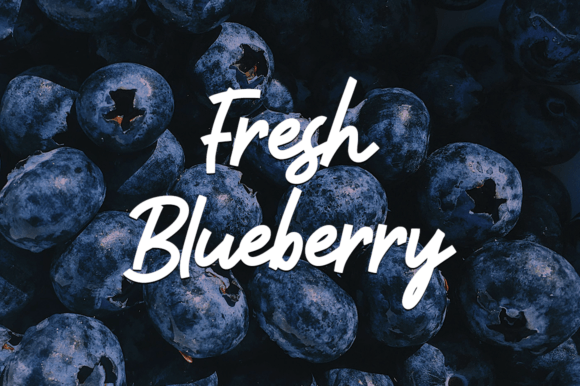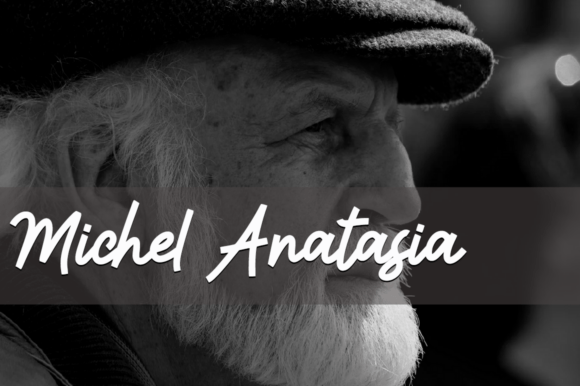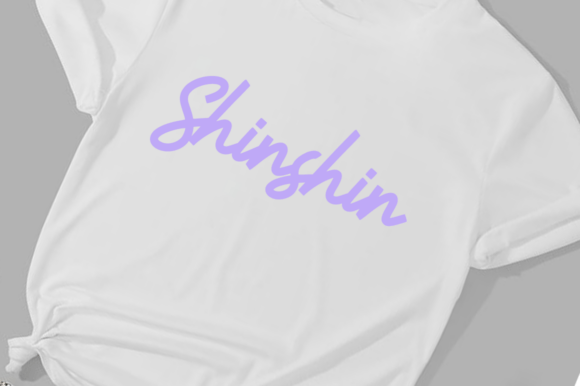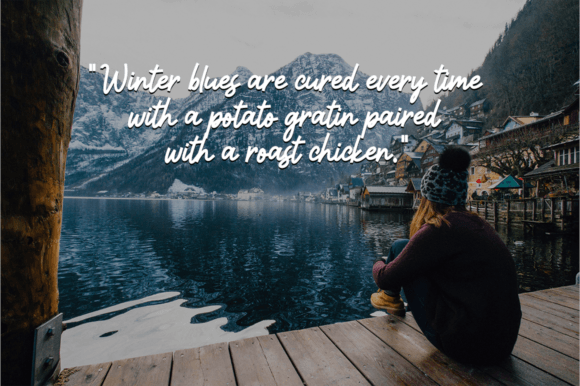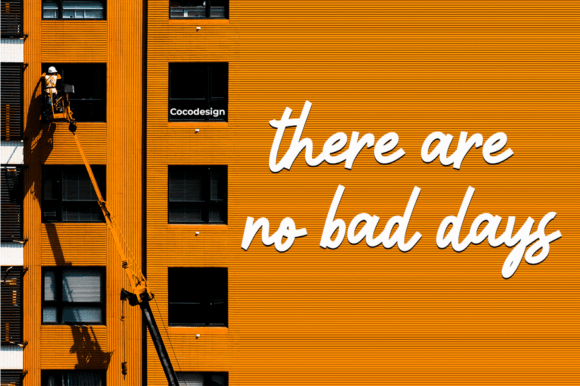
Introduction to Jamaika Font
As a designer, have you ever stumbled upon that perfect font that makes your creative project shine? For me, it was the moment I discovered Jamaika Font. Its delicate, handwritten charm instantly elevated my designs, and I knew I had to share it with fellow creatives. Whether you’re a seasoned designer or just starting out, this high-quality font is sure to become your go-to resource for adding a touch of sophistication to your work.
Jamaika Font is a game-changer for designers seeking to elevate their branding, marketing collateral, and even apparel designs. Its chic, feminine strokes effortlessly enhance the elegance of any design, making it perfect for projects that require a delicate, handwritten charm. With its transparent background and free download option, you can experiment with this beautiful font without any limitations.
Key Features of Jamaika Font
- Comes in a transparent background for seamless integration
- Features a unique, elegant design perfect for various applications
- Includes 2 font styles with multiple weights and sizes
Honest Review: Jamaika Font
I recently had the opportunity to work with the Jamaika Font, and I must say it’s been a game-changer for my design projects. The font is a high-quality addition to any design resource, offering a unique and stylish look that’s perfect for creative projects.
One of the standout features of the Jamaika Font is its transparent background, which allows it to seamlessly integrate with any design. This makes it an excellent choice for designers who want to create visually appealing graphics and typography.
Here are some of the things that work well with the Jamaika Font:
- High-quality design that’s perfect for creative projects ✨
- Transparent background for easy integration ✨
While the Jamaika Font is an excellent choice for many designers, there are a few limitations to consider:
- Limited character set, which may not be suitable for longer text-based designs ⚠️
- Not as versatile as some other fonts, which may limit its use in certain design contexts ⚠️
Overall, I’m impressed with the Jamaika Font and would highly recommend it to designers looking for a high-quality, unique font for their creative projects.
The Jamaika Font is a high-quality design resource that can elevate your creative project. With its unique style and transparent background, it’s perfect for designers looking to add a touch of elegance to their work.
Tips for Getting the Most Out of Jamaika Font
Use the Jamaika Font to create eye-catching headlines and titles. Experiment with different font sizes and styles to add depth and visual interest to your designs.
The Jamaika Font is perfect for a variety of design projects, including branding, packaging, and advertising materials. Its unique style and high-quality design make it an excellent choice for designers looking to create stunning visuals.
Alternatives to Jamaika Font
Pacifico is a high-quality, elegant script font perfect for creative projects that require a touch of sophistication. It features a transparent background and is ideal for use in logos, branding materials, and other design elements. When to use: Pacifico is suitable for projects that require a modern, yet classic feel. Compared to Jamaika Font, Pacifico has a more refined and polished look, making it an excellent choice for high-end design projects.
Great Vibes is a beautiful, cursive font that is perfect for creative projects that need a fun and energetic vibe. It features a transparent background and is ideal for use in social media graphics, advertisements, and other promotional materials. When to use: Great Vibes is suitable for projects that require a playful and youthful feel. Compared to Jamaika Font, Great Vibes has a more relaxed and casual look, making it an excellent choice for design projects that need a lighthearted touch.
Dancing Script is a high-quality, elegant script font perfect for creative projects that require a touch of sophistication. It features a transparent background and is ideal for use in logos, branding materials, and other design elements. When to use: Dancing Script is suitable for projects that require a modern, yet classic feel. Compared to Jamaika Font, Dancing Script has a more refined and polished look, making it an excellent choice for high-end design projects.
Yes, the Jamaika Font has a transparent background, making it ideal for overlaying on images or using as a design element in your creative project.
Q: Is the Jamaika Font a high-quality design resource, suitable for professional use?
Yes, the Jamaika Font is a high-quality design resource, carefully crafted to meet the needs of professional designers and creatives. Its clean and elegant design makes it suitable for a wide range of applications, from corporate branding to editorial design.